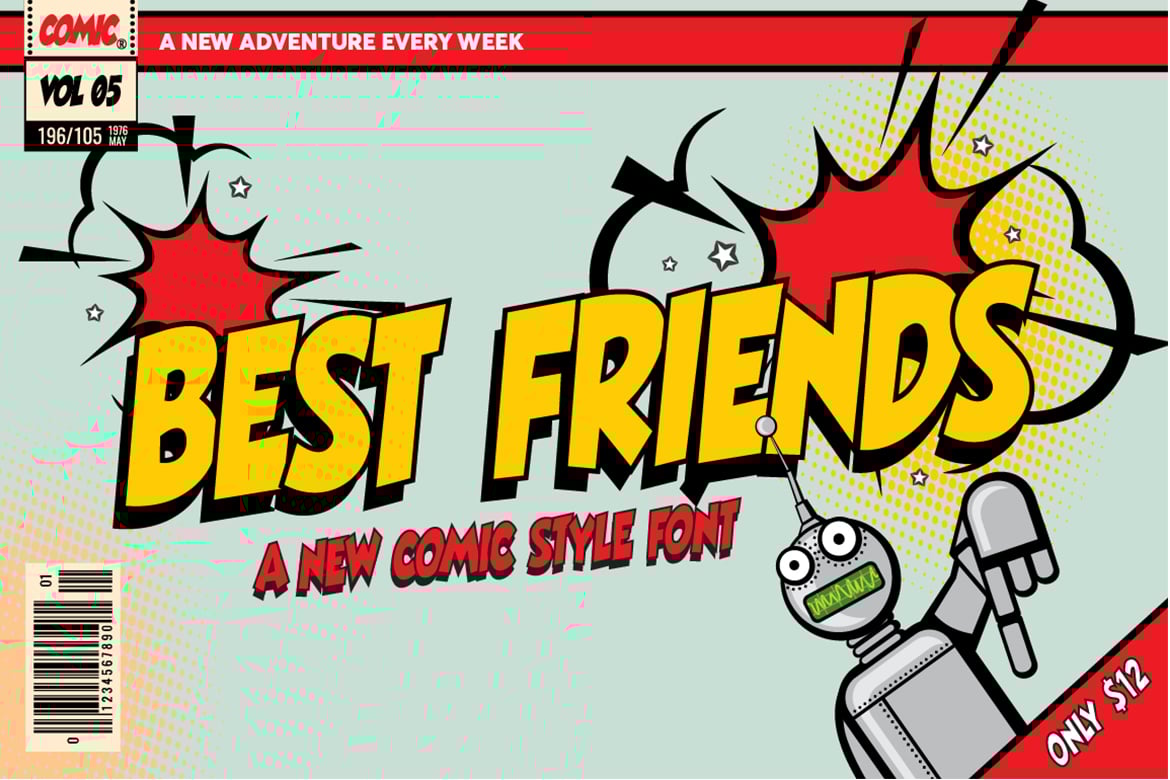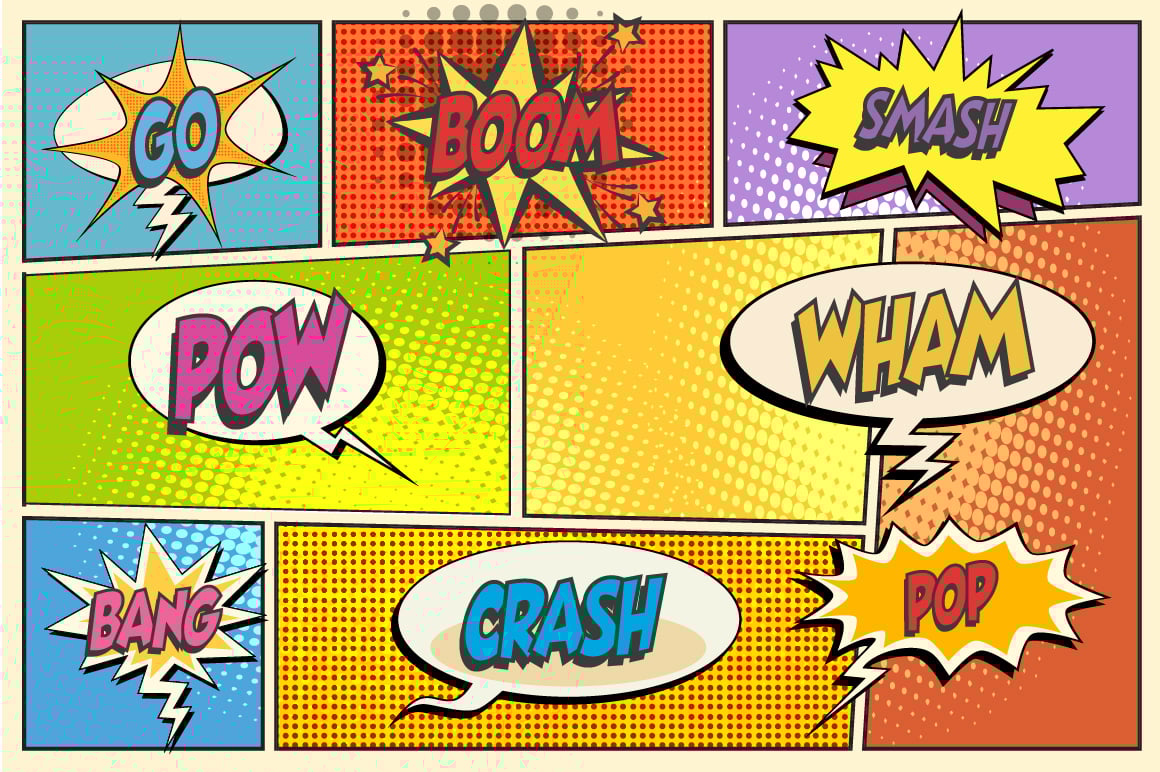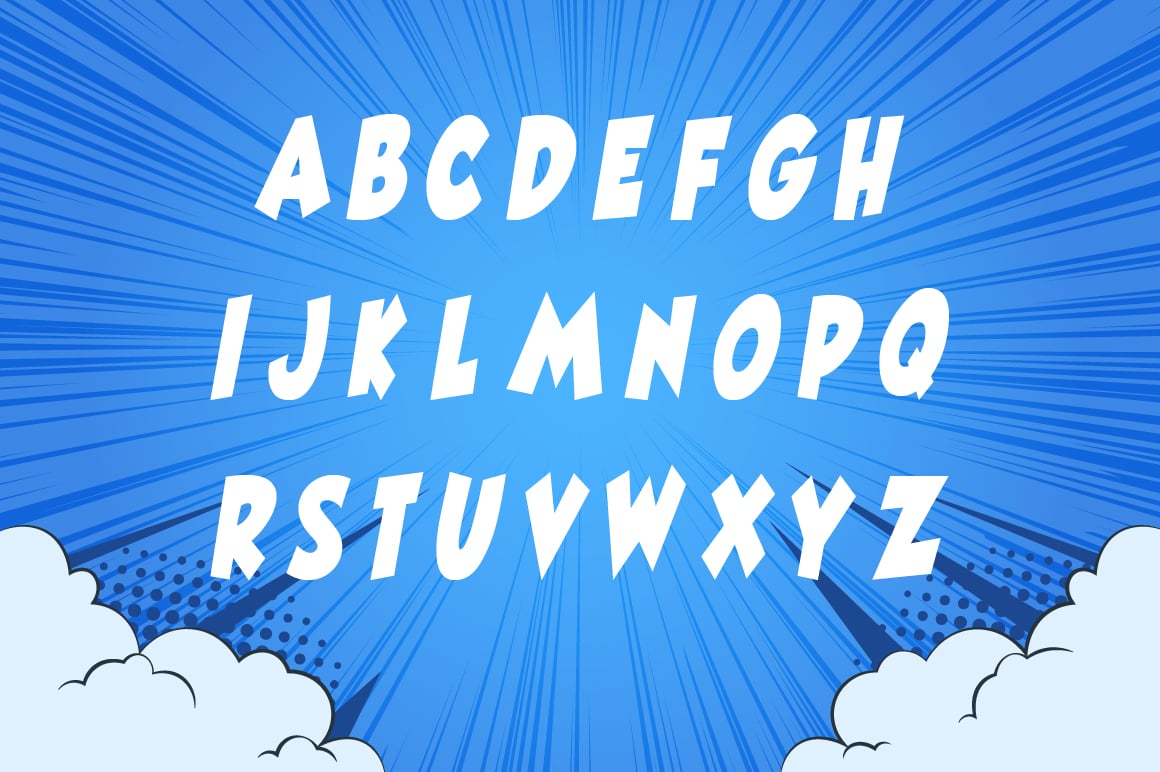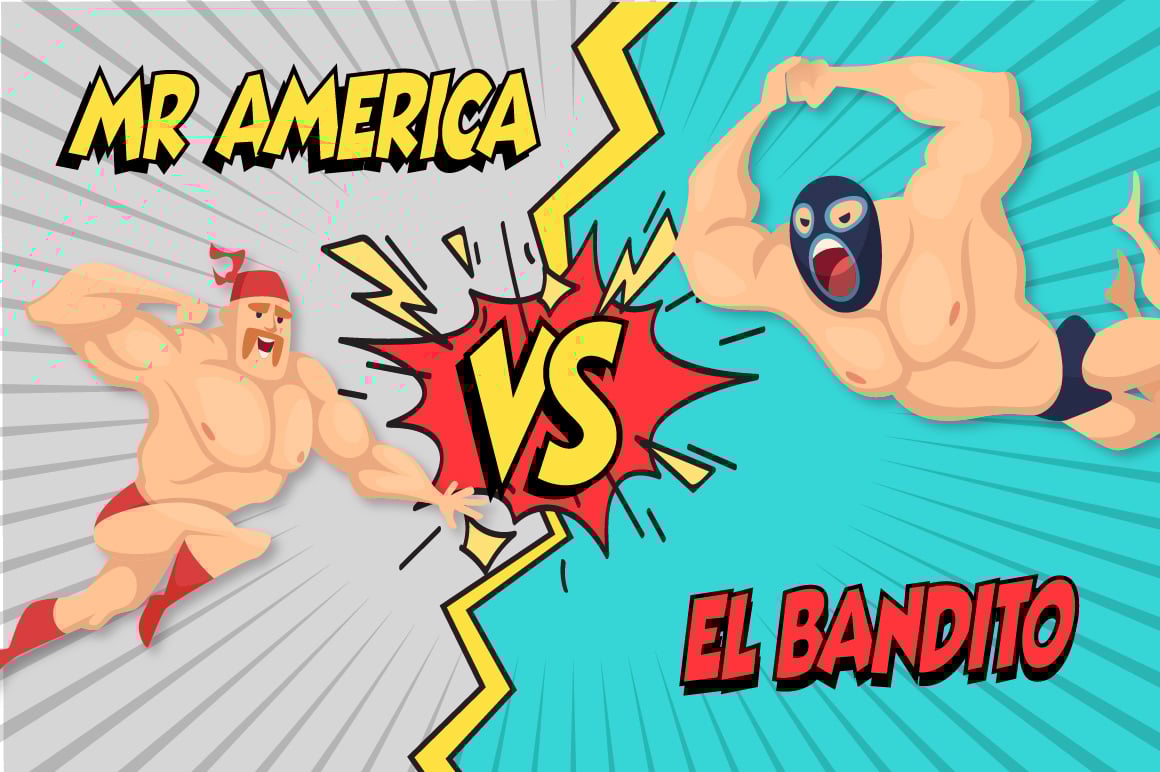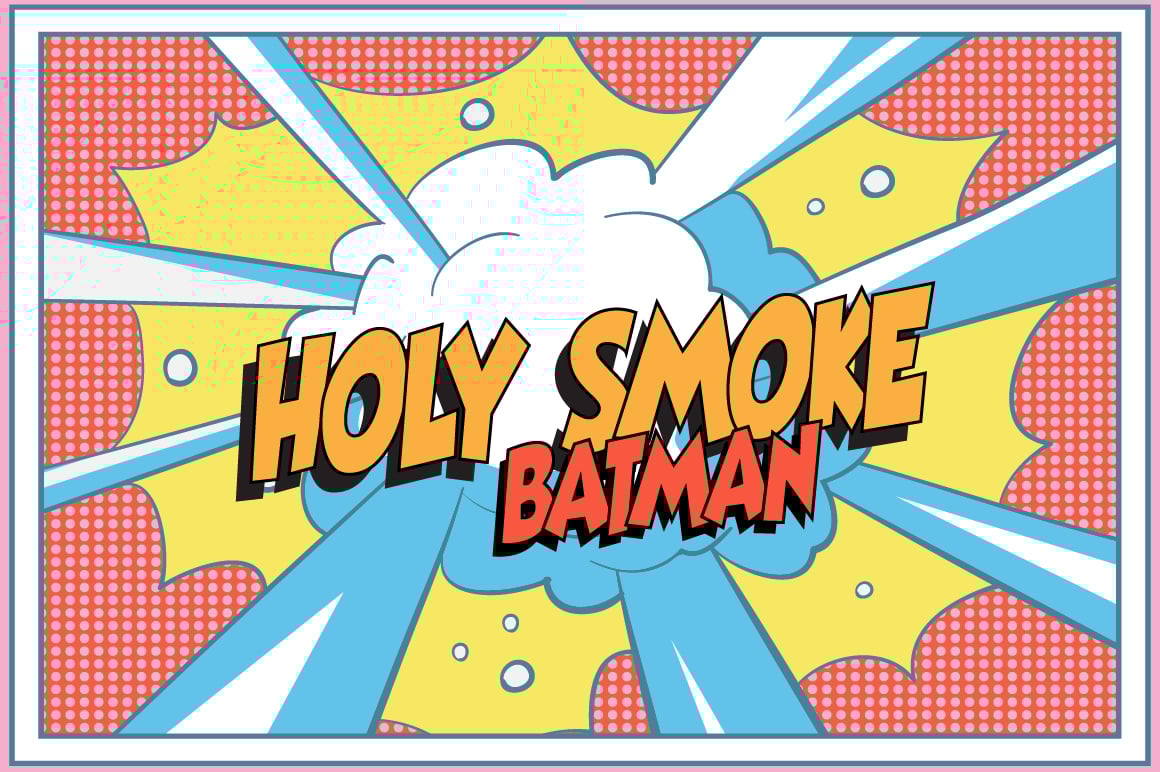
Best Friends Comic Font
Best friends is a fabulous new comic book style font that packs a huge KAPOW! Perfect for adding a little sass to your designs and full of character! Use it for anything and everything your imagination can think of!